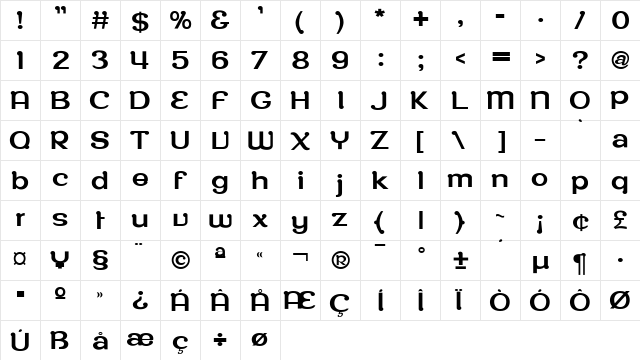
Roppongi Regular
Design Context for Roppongi Typeface
Roppongi is a composed and adaptable typeface that performs quietly and consistently across a wide range of design contexts.